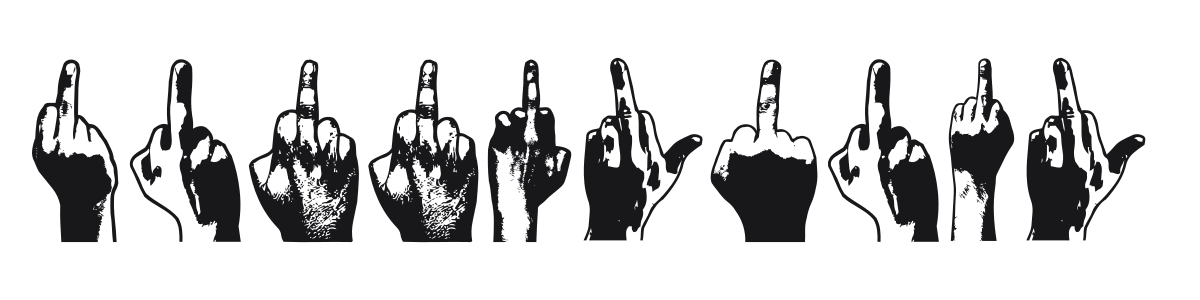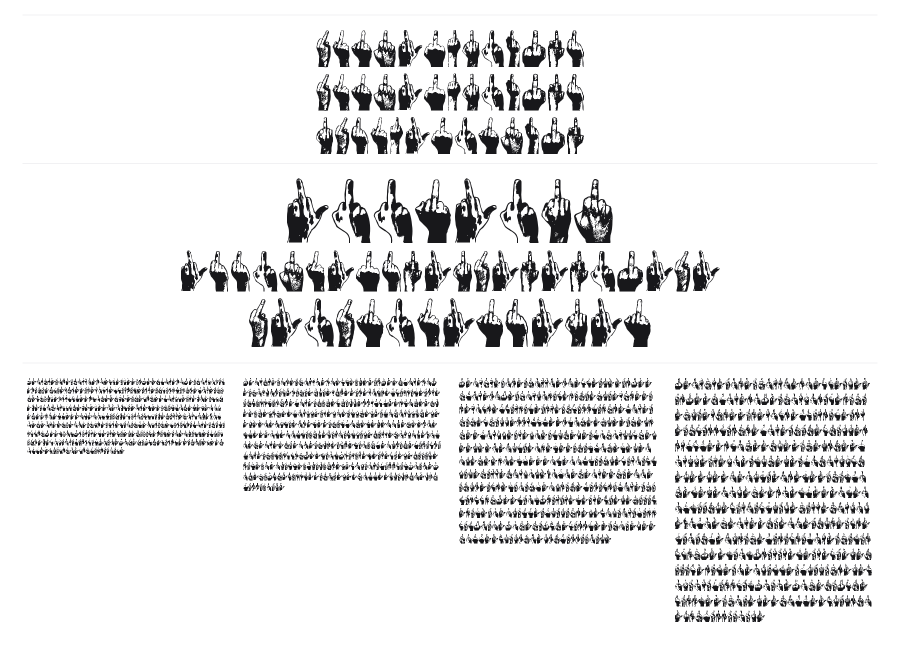
Middle Finger
Middle Finger is a dingbat font by Vladimir Nikolic built entirely from illustrated hand-gesture symbols, each one a variation of the same universal gesture. The glyphs range from clean graphic silhouettes to rough, textured ink treatments, giving designers a range of expressive options in a single font. Best used where attitude is the message.